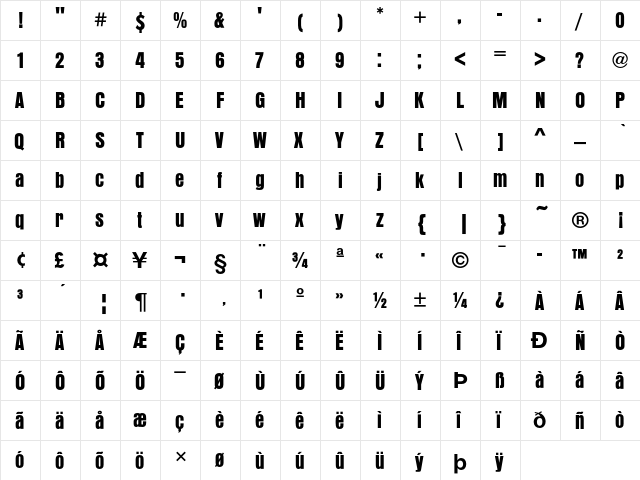
Anzeigen Grotesk D Regular
Design Context for Anzeigen Grotesk D Typeface
Anzeigen Grotesk D has the quiet confidence of well-executed sans-serif typography: versatile, unobtrusive, and dependable at any size.
Font Pairing: Works well alongside a characterful serif or display font that can carry the expressive load while Anzeigen Grotesk D handles the functional copy.
Pro Tip: Pair Anzeigen Grotesk D with a display or serif font for headlines — its neutral character makes it an excellent supporting player in complex typographic systems.